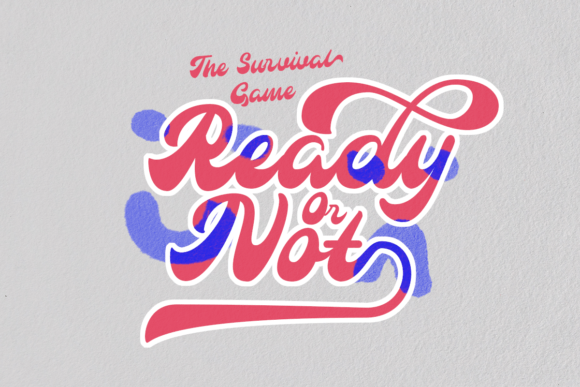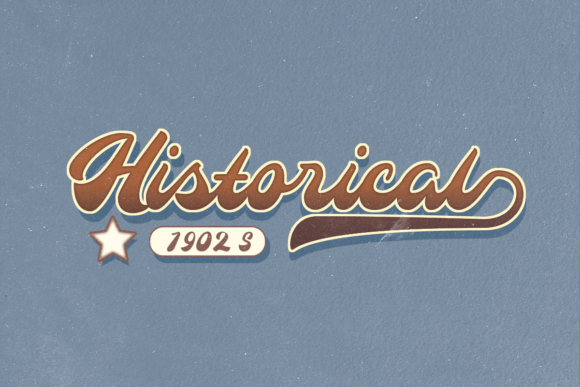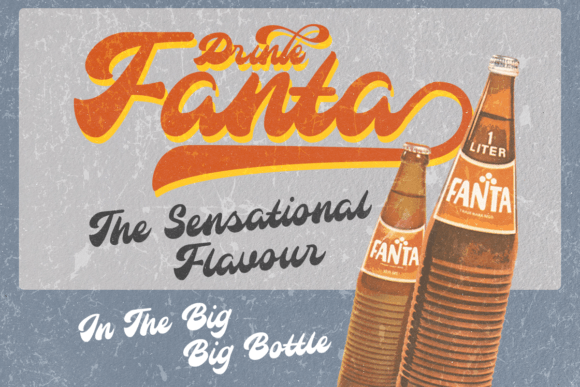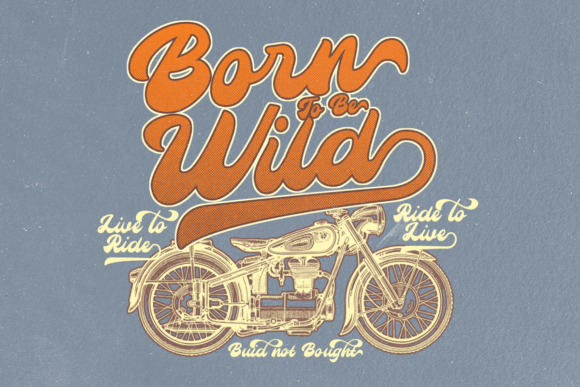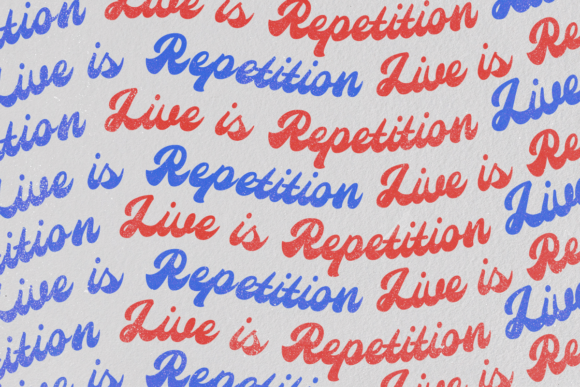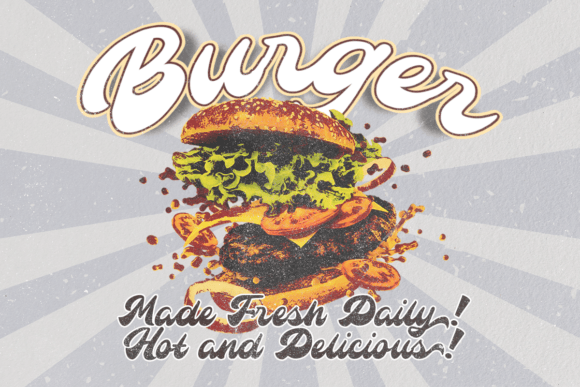
The Perfect Script for Your Next Design Project
Have you ever stared at a blank canvas, feeling the pressure to create something truly unique and captivating? You’re not alone. As designers, we’ve all been there – searching for that perfect combination of style and elegance to bring our vision to life. And that’s exactly where the Galliardo Font comes in – a versatile script that combines the chic stylishness of the art deco period with the retro feel of the ultra-cool 70s.
| 👤 Author | Dharmas Studio |
Whether you’re working on branding projects, signage, or packaging, the Galliardo Font is your go-to choice for creating a memorable and distinct visual experience. With its classic and vintage-inspired typeface, this font adds a touch of timeless charm to any design. As a designer, you’ll appreciate the value of having a font that’s both versatile and stylish – making it perfect for a wide range of applications.
Galliardo Font Key Features
- Font Family: Galliardo, Galliardo Bold, Galliardo Italic, Galliardo Bold Italic
- Unique Characteristics: Galliardo Font features a unique, elegant script style with high x-height, making it perfect for formal invitations, wedding stationery, and other high-end designs
Galliardo Font Review
Galliardo Font is a unique and stylish font that can add a touch of elegance to any design project. I think it works well in ✨ formal and upscale settings, such as luxury branding, high-end advertising, or fine art projects. The font’s intricate details and ornate flair can create a sense of sophistication and refinement. It also pairs well with modern and minimalist designs, providing a nice contrast between old and new.
- ✨ Elegant and sophisticated feel
- ✨ Versatile and can be used in a variety of settings
- ✨ Unique and attention-grabbing
However, there are some limitations to consider. ⚠️ The font can be quite busy and overwhelming if used in large quantities or without proper spacing. Additionally, the font’s intricate details can make it difficult to read in certain contexts, such as on small screens or in low-light environments. It’s also worth noting that the font may not be suitable for all types of content, such as body text or headlines that require a clear and concise message.
Overall, I think Galliardo Font is a great choice for designers who want to add a touch of luxury and sophistication to their projects. However, it’s essential to use it thoughtfully and consider the potential limitations to ensure the best results.
Getting the Most Out of Galliardo Font
Some tips for getting the most out of the Galliardo Font include using it in conjunction with bold or italic styles to add emphasis, using it in combination with other fonts to create a visually appealing contrast, and using it in larger font sizes to make a statement.
The Galliardo Font is commonly used in design projects that require a elegant and sophisticated look, such as wedding invitations, luxury product packaging, and high-end marketing materials. It is also used in digital design projects that require a clean and modern look, such as website headers and social media graphics.